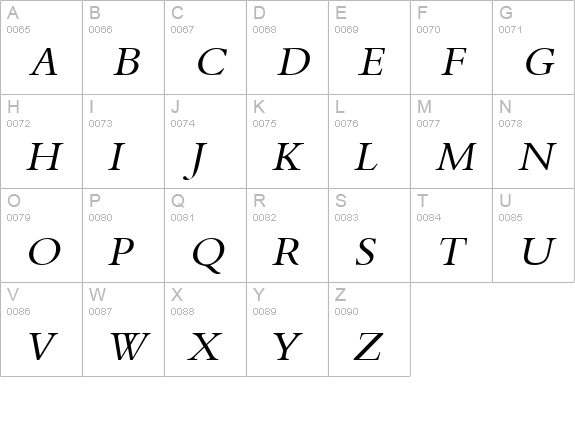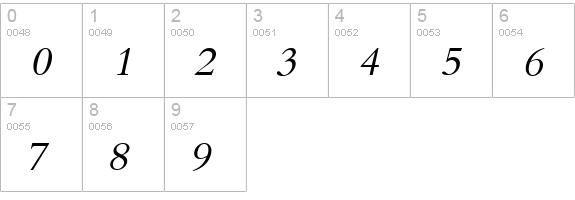
Nadine 2 Italic is a distinctive, italic variant in the Nadine typeface family \xE2\x80\x94 well suited to design and typography projects.
Introducing Nadine 2 Italic font, a stylish and elegant typeface perfect for adding a touch of sophistication to your designs. With its sleek curves and modern aesthetic, Nadine 2 Italic exudes a sense of grace and refinement. This versatile font is ideal for a variety of projects, from branding to editorial design. What's even better is that Nadine 2 Italic font is available for free download at FontsMarket.com. Take advantage of this amazing offer and elevate your designs with the timeless beauty of Nadine 2 Italic font.